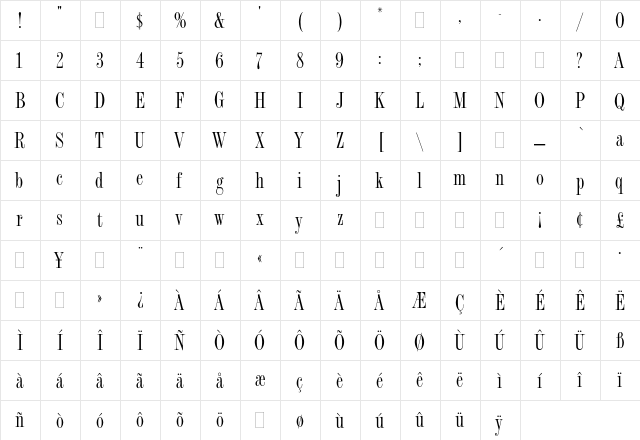
Fashion Compressed Plain
Design Context for Fashion Compressed Typeface
Fashion Compressed takes a measured approach to typography — its balanced proportions and neutral character make it a reliable workhorse for both digital and print work.